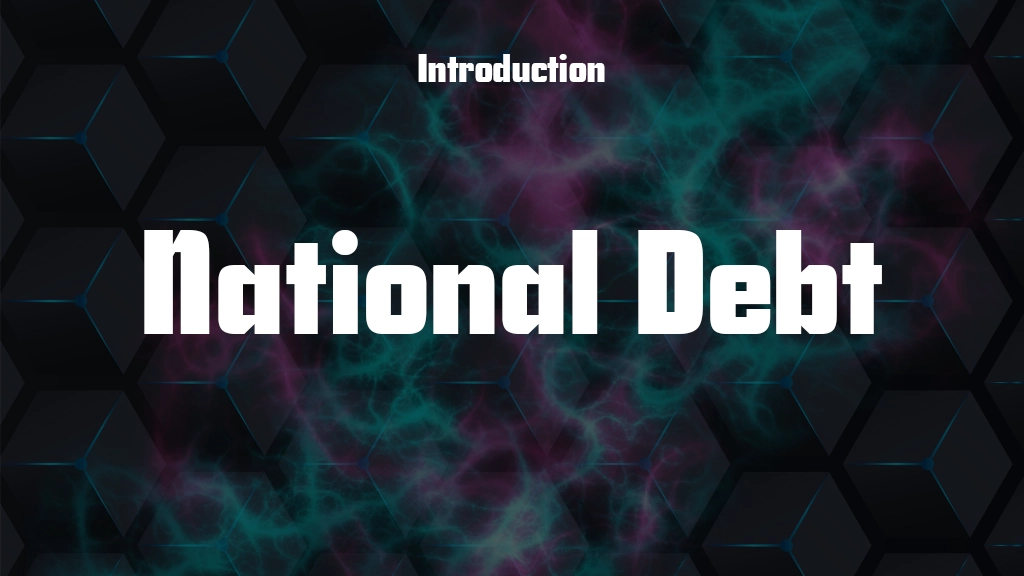
The font National Debt is a good choice for any design that is meant to be fun and playful.The Regular subfamily of this font is the most versatile and can be used for a variety of purposes.
National Debt